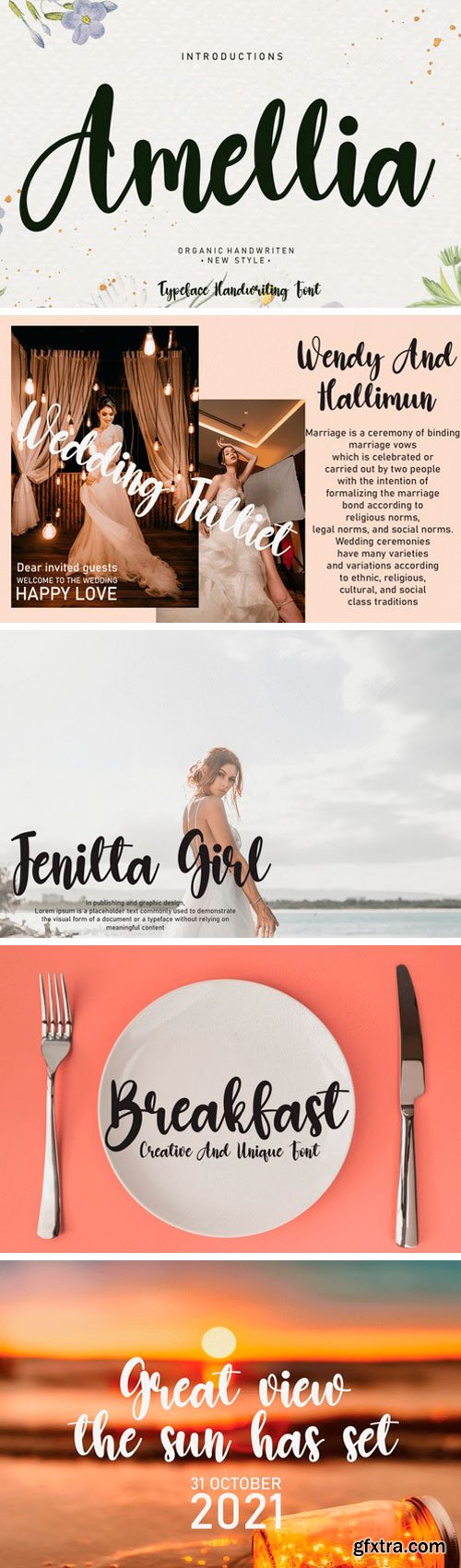
Amellia Script Font
It’s a magical script font carefully created with a touch of elegance. Whether you’re looking for fonts for Instagram or calligraphy scripts for DIY projects, this font will turn any creative idea into a true piece of art!